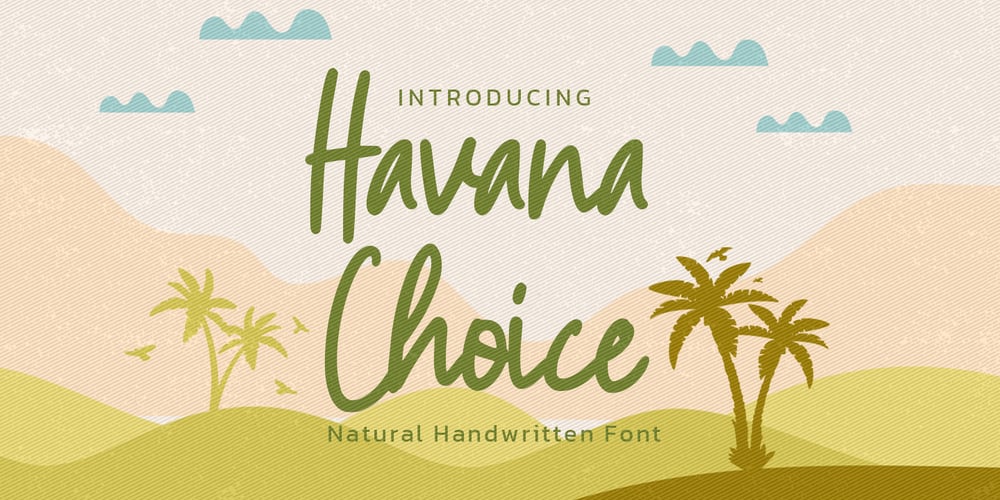
Havana Choice Font Family was designed by Abdul Malik Wisnu, Anang Fibriyanto and published by Gassstype. Havana Choice contains 1 styles and family package options. Hello Everyone, Introduce our new collection Havana Choice is A Natural Handwritten Font,This font Stylish Authentic Script is great for your creative projects such as watermark on photography, and perfect for logos & branding, photography, invitation, watermark, advertisements, product designs, stationery, wedding designs,label, product packaging, special events or anything that need Signature taste.Havana Choice is Font Authentic that is written casually and quickly. Then scanned and carefully drawn into vector format.This handmade font will make your design has a beautiful natural touch for each details.